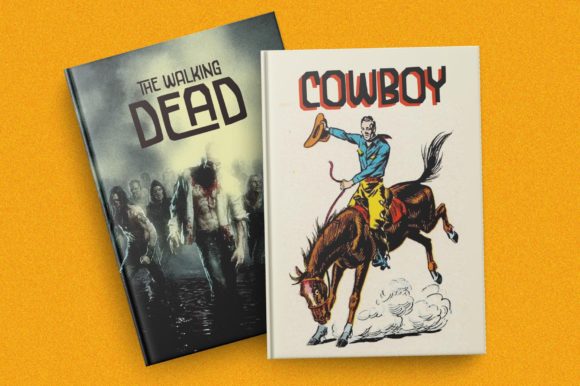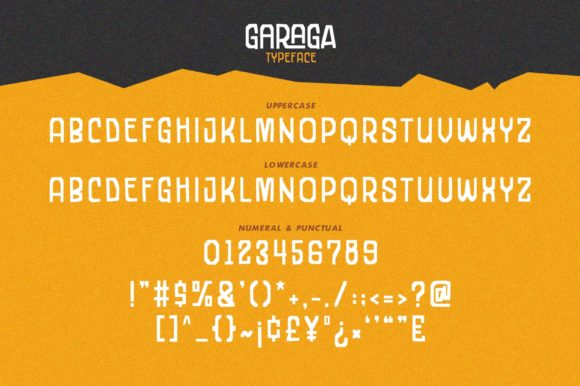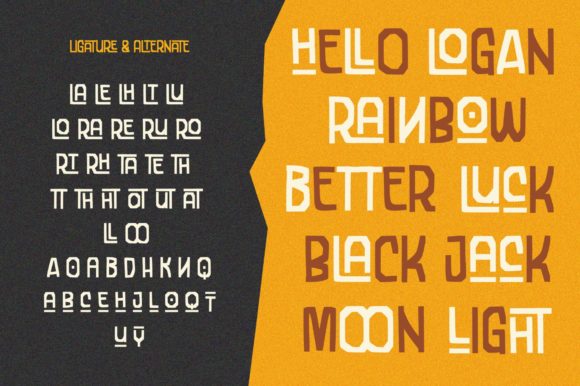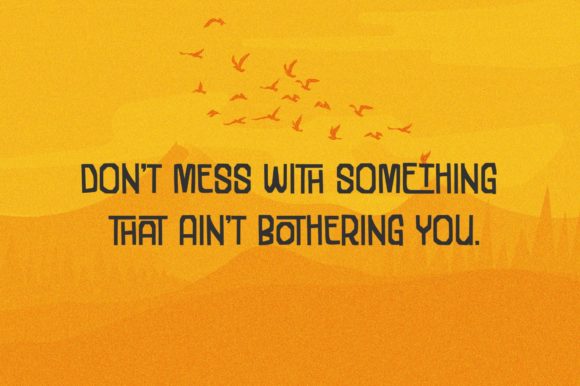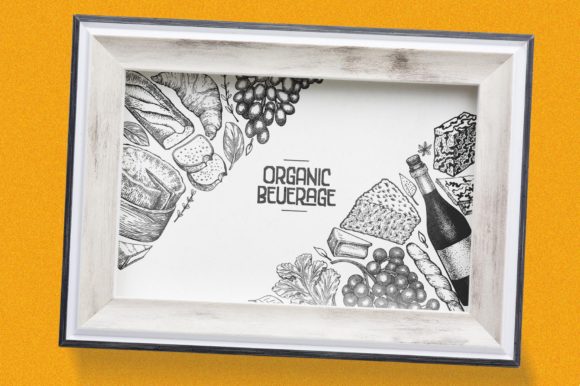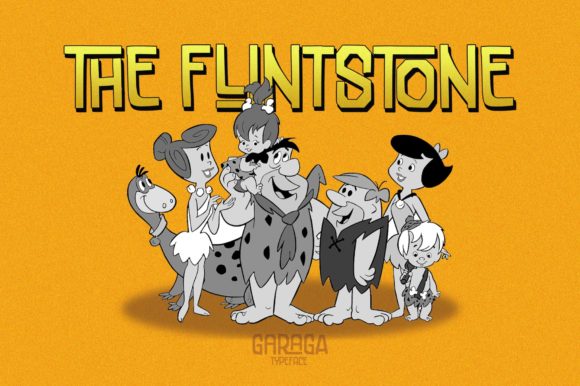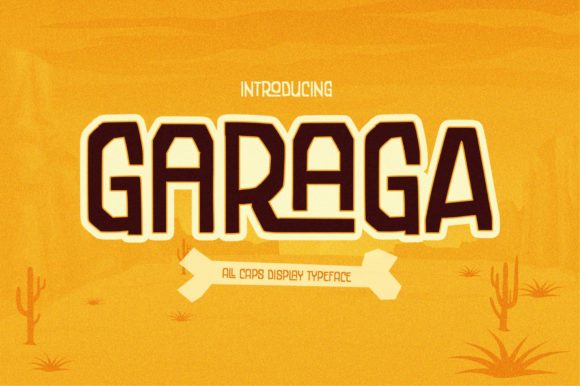
Introducing Garaga Font: The Quirky Display Font You Need
Are you tired of using the same old fonts for your creative projects? Look no further! Garaga Font is here to shake things up with its simple yet quirky display font style. This dazzling font is designed to turn any creative idea into a standout, making it perfect for designers and crafters alike.
What is Garaga Font?
Garaga Font is a unique display font that boasts a simple yet eye-catching design. Its quirky style sets it apart from more traditional fonts, making it ideal for projects that require a bit of personality. Whether you’re working on a logo, poster, or social media graphic, Garaga Font is sure to make your design pop.
Key Features of Garaga Font
- Simple yet quirky design: Garaga Font’s unique style is both easy to read and visually appealing.
- Display font: Perfect for headlines, titles, and other display text.
- Highly versatile: Works well for a variety of design projects, from logos to posters.
Why Choose Garaga Font?
So, why should you choose Garaga Font for your next project? Here are just a few reasons:
- Adds personality to your design: Garaga Font’s quirky style helps your design stand out from the crowd.
- Perfect for creative projects: Whether you’re working on a personal project or a client’s, Garaga Font is sure to impress.
- Easy to pair with other fonts: Garaga Font’s simple design makes it easy to pair with other fonts for a cohesive look.
Using Garaga Font in Your Design Projects
Ready to start using Garaga Font in your design projects? Here are a few tips to get you started:
- Use it as a headline font: Garaga Font’s display style makes it perfect for headlines and titles.
- Pair it with a serif font: For a classic look, pair Garaga Font with a serif font like Times New Roman or Georgia.
- Experiment with colors: Garaga Font looks great in a variety of colors, so don’t be afraid to get creative!
Garaga Font in the World of Design
Garaga Font is more than just a font – it’s a design statement. In a world where design is constantly evolving, Garaga Font is a breath of fresh air. Its quirky style and simple design make it perfect for designers who want to push the boundaries of traditional design.
Tips for Crafters and Designers
Whether you’re a seasoned designer or a crafter looking to add some personality to your projects, Garaga Font is a great addition to your toolkit. Here are a few tips for getting the most out of Garaga Font:
- Use it to add visual interest: Garaga Font’s quirky style is perfect for adding visual interest to your designs.
- Experiment with different sizes: Garaga Font looks great in a variety of sizes, from small captions to large headlines.
- Don’t be afraid to get creative: Garaga Font is a versatile font that can be used in a variety of creative ways.
| Author | Garisman Studio |
In conclusion, Garaga Font is a simple yet quirky display font that’s perfect for designers and crafters alike. Its unique style and versatility make it a great addition to any design project. So why settle for boring, generic fonts when you can add some personality to your designs with Garaga Font?
Get Ready to Stand Out with Garaga Font